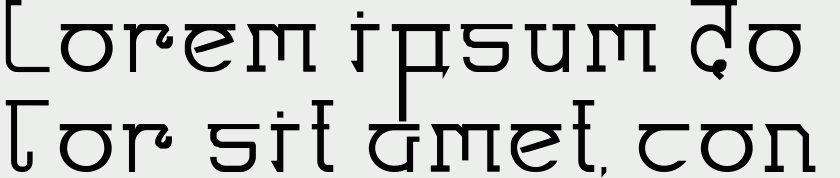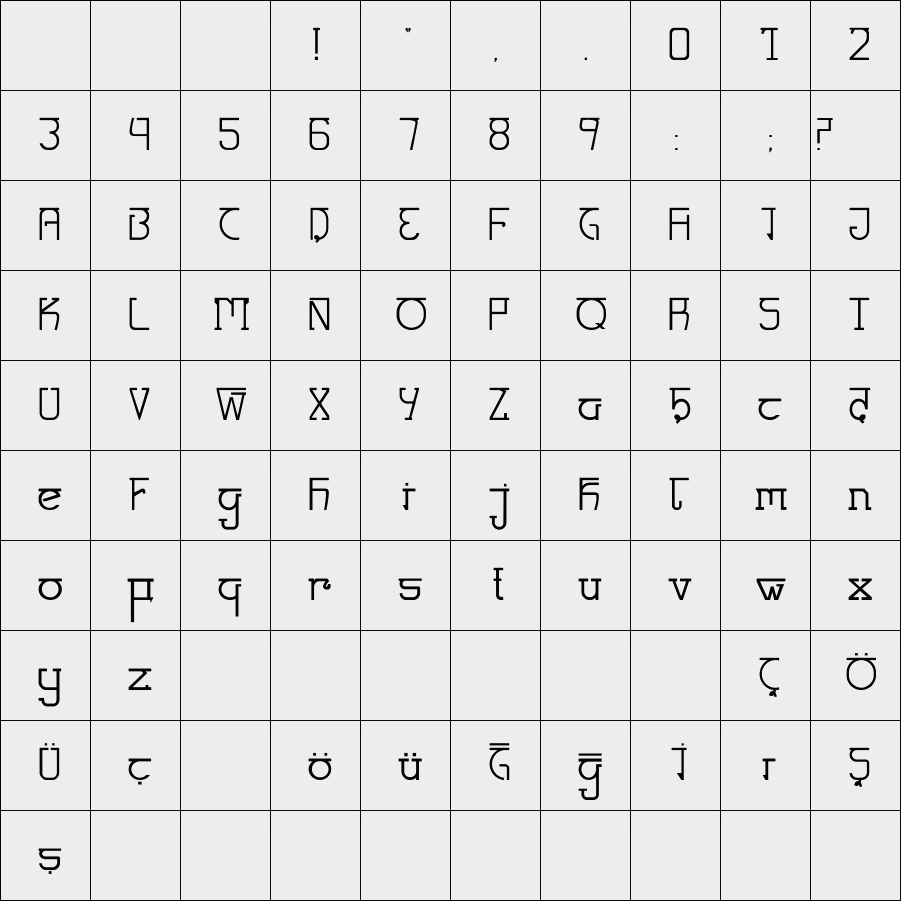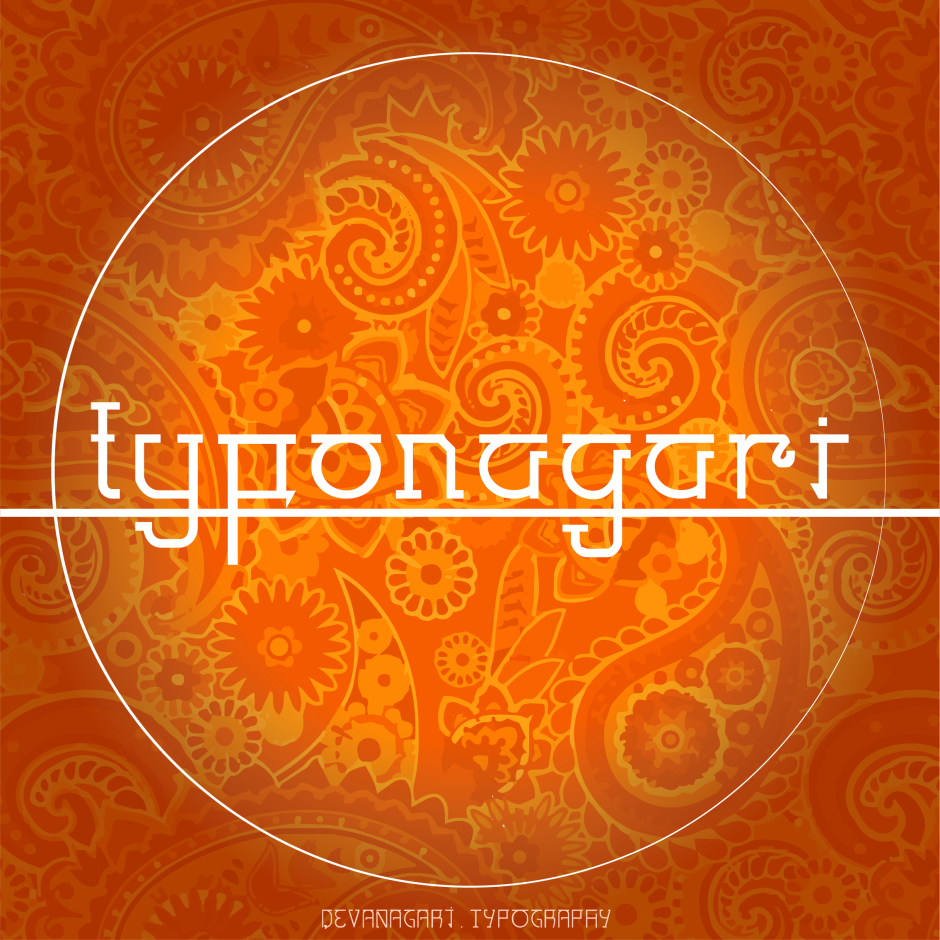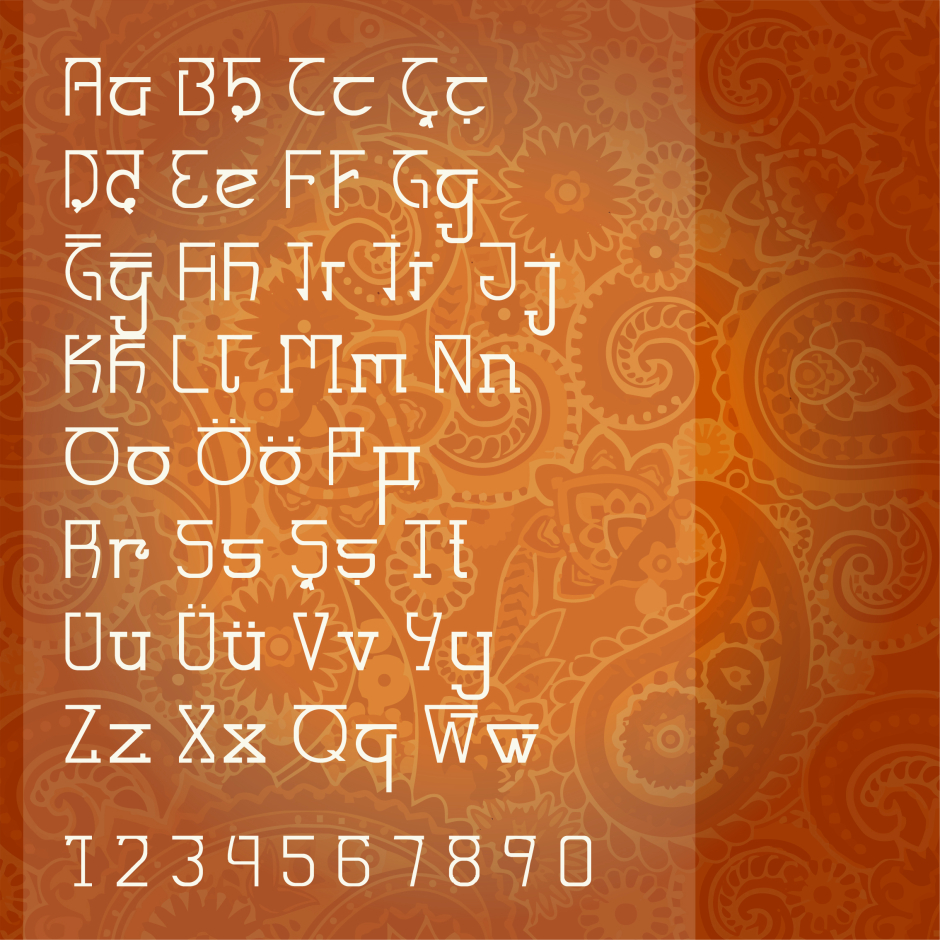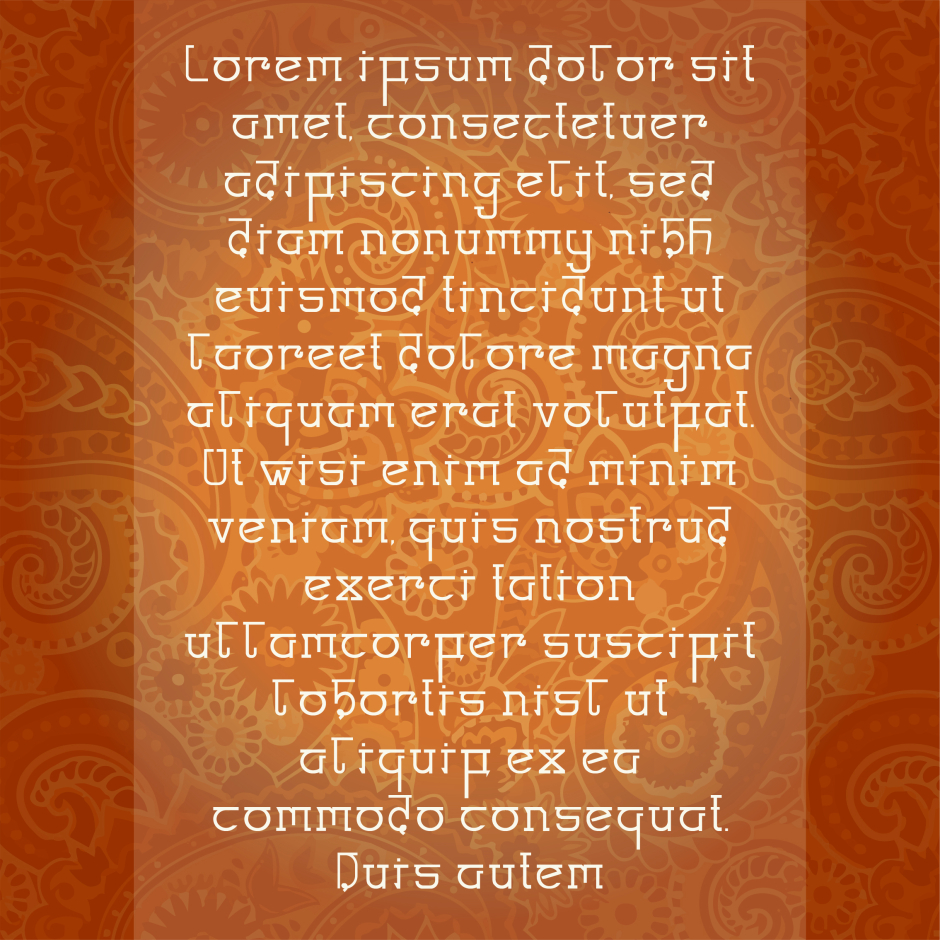
TypoNagari
This font is an experimental type design that combines modern typography with the visual characteristics of the Devanagari writing system. Geometric and minimal Latin letterforms are blended with the fluid lines and rhythmic structure of Devanagari, creating a unique visual language. Reflecting a fusion of culture and contemporary aesthetics, the font is designed for experimental and attention-grabbing visual projects.